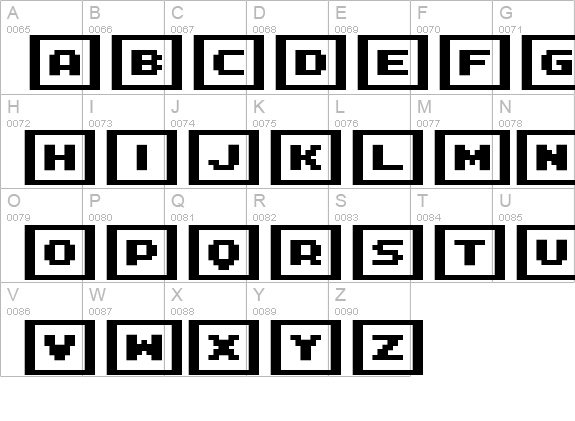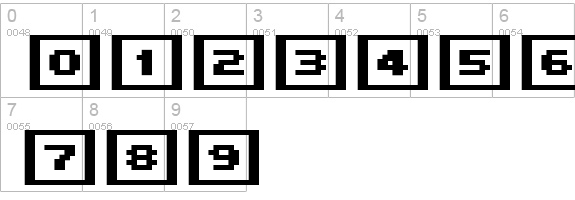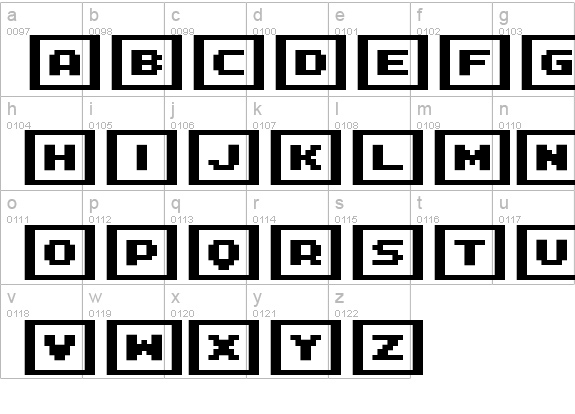
The FFF Interface03b font is a modern and sleek typeface that exudes sophistication and style. Its clean lines and sharp edges make it perfect for a wide range of design projects, from websites to posters to branding materials. The font's bold and dynamic appearance commands attention and adds a touch of professionalism to any visual composition. What sets FFF Interface03b apart is not only its striking design, but also the fact that it is available for free. That's right - you can download this premium font at no cost from FontsMarket.com. Whether you're a seasoned designer looking to refresh your font library or a beginner exploring new typographic styles, FFF Interface03b is a valuable addition that won't break the bank. With its versatile and eye-catching design, FFF Interface03b is sure to elevate your projects and help you stand out from the crowd. Download it today and unleash your creativity with this exceptional free font.